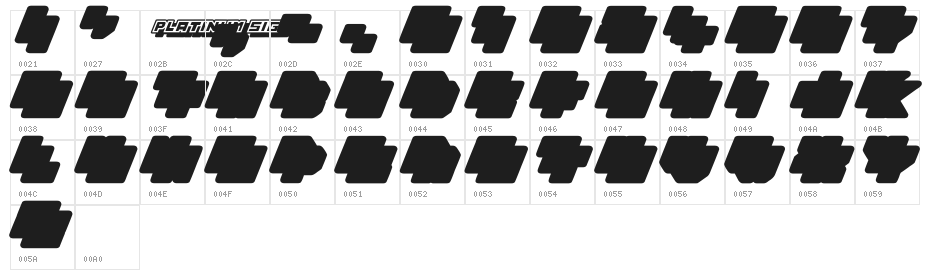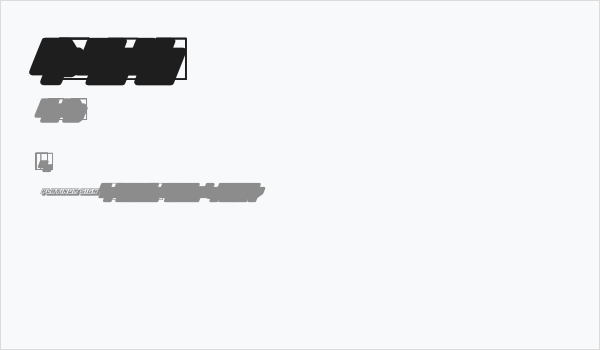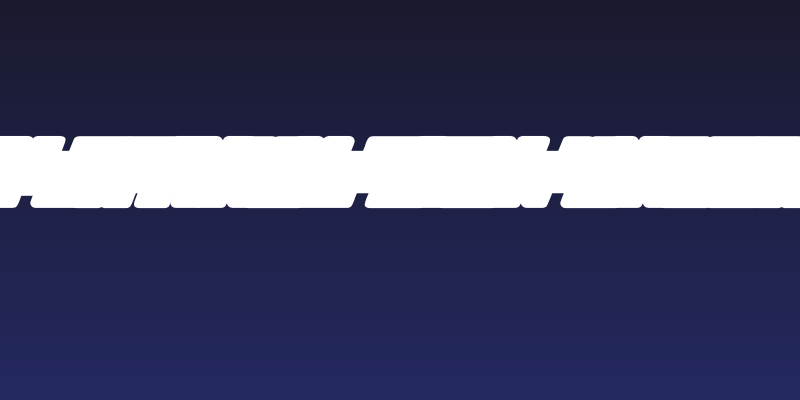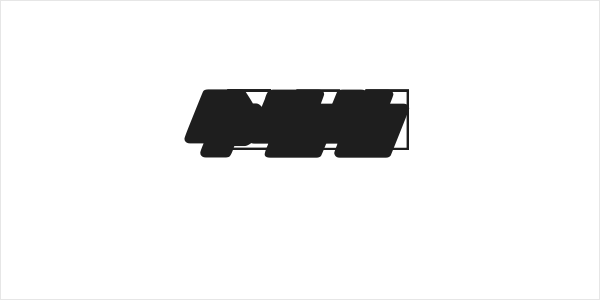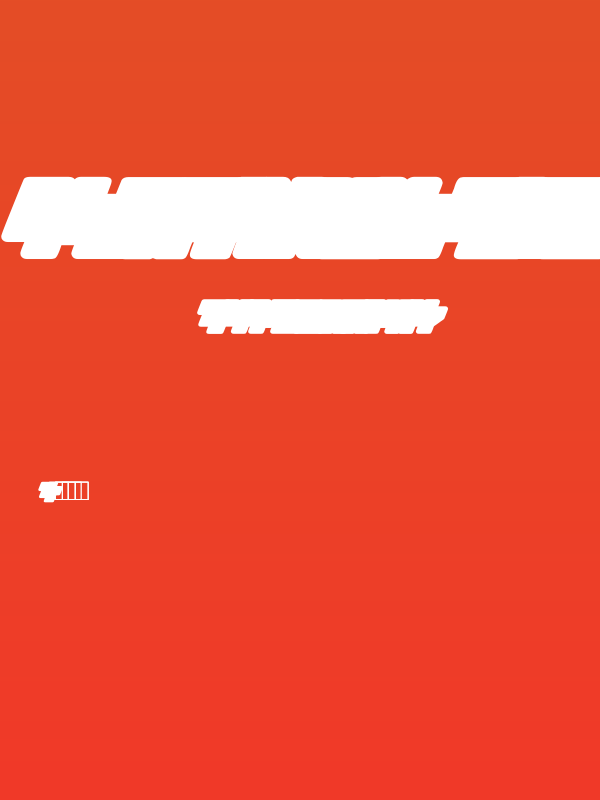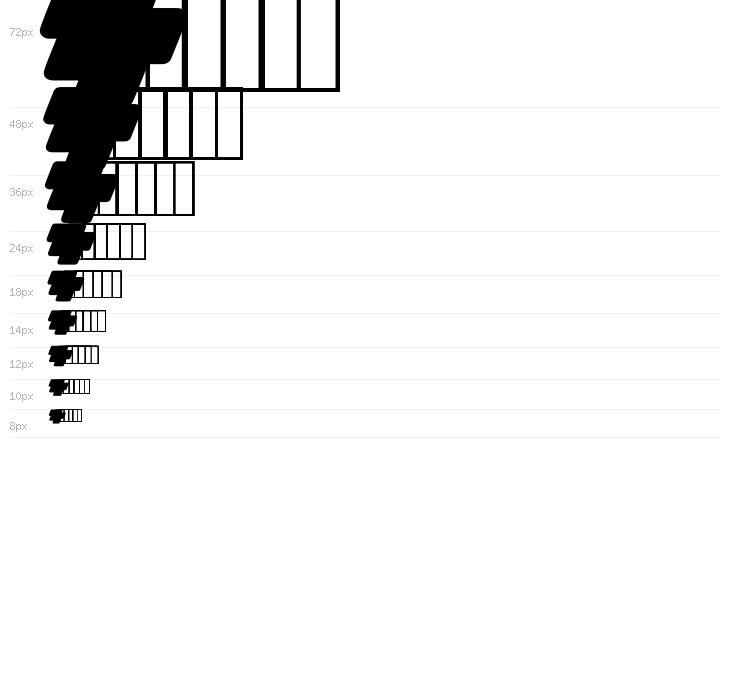
Platinum Sign Under Font
This font features a bold, dynamic style with a strong presence. The characters are designed with a slight slant, giving them a sense of motion and energy. The strokes are thick and consistent, providing a uniform appearance across all characters. The uppercase letters are particularly striking, with sharp angles and a modern aesthetic. The lowercase letters maintain the same boldness, ensuring readability and impact. The numbers and special characters are equally robust, making them suitable for a variety of applications. Overall, this font exudes a contemporary and assertive vibe, ideal for making a statement.
| Use Case | Headlines, Logos, Advertising |
| Proposed Projects | Ideal for branding, advertising, headlines, and any project requiring a strong visual impact. |